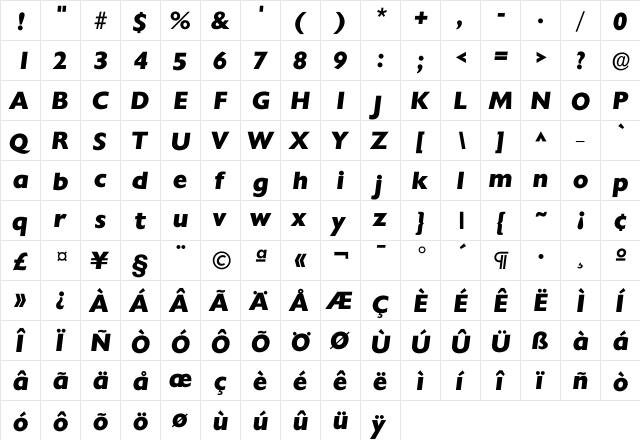
Ichantilly ExtraBold
Design Context for Ichantilly Typeface
Ichantilly offers clean, dependable letterforms without strong stylistic allegiance, making it a practical choice for designers who need flexibility. Its bold stroke weight gives it real presence on the page.
Pro Tip: Use Ichantilly in both headline and body roles to test its range before committing to a single application.